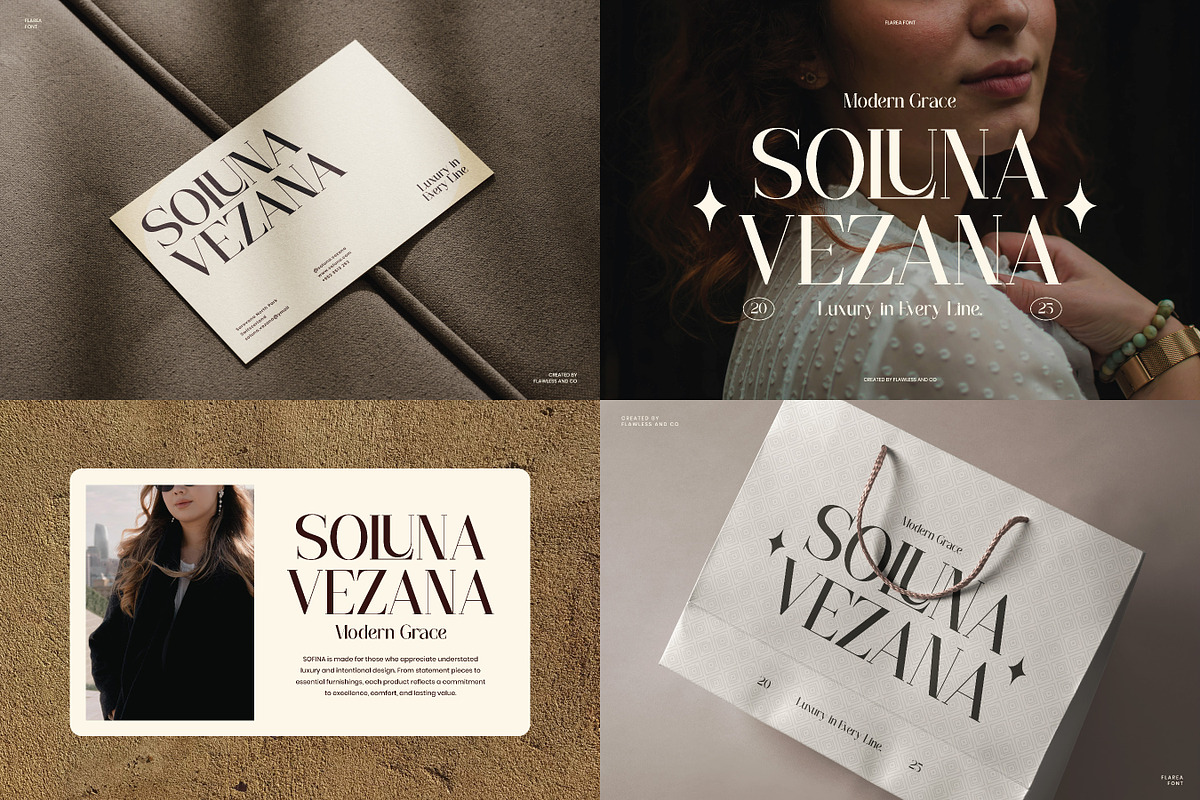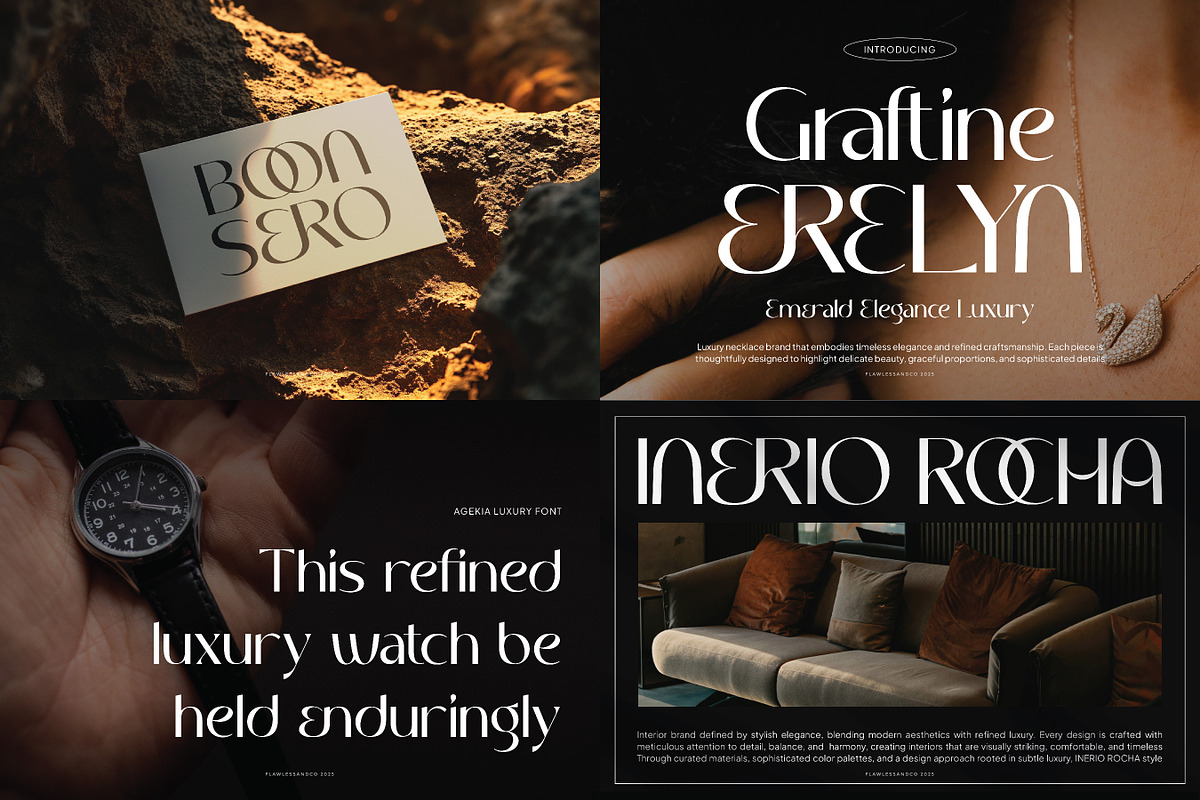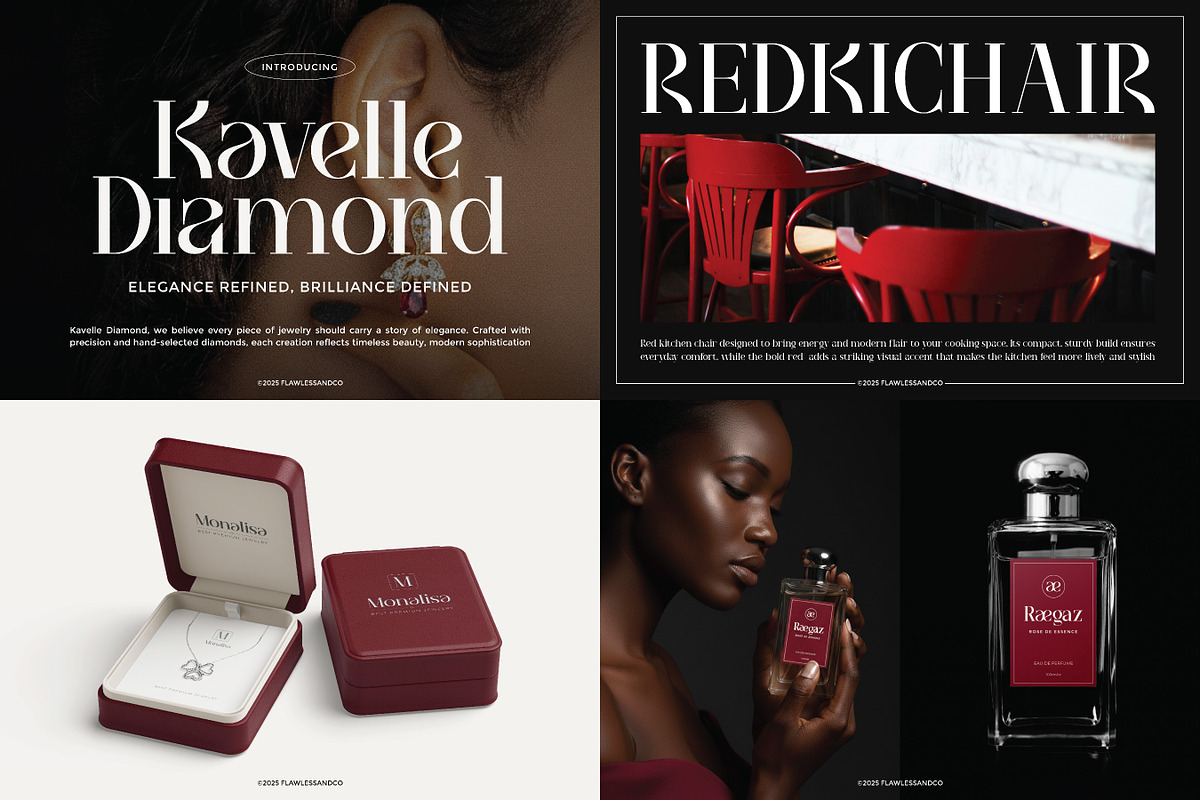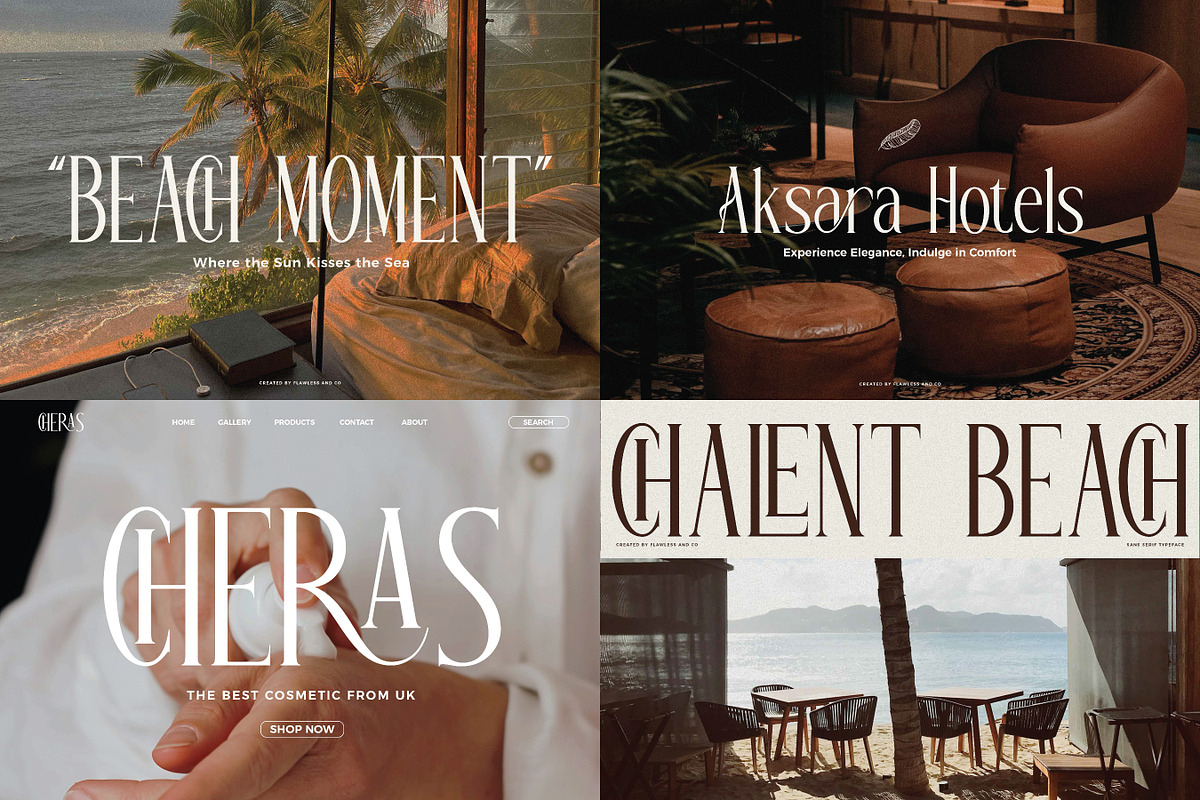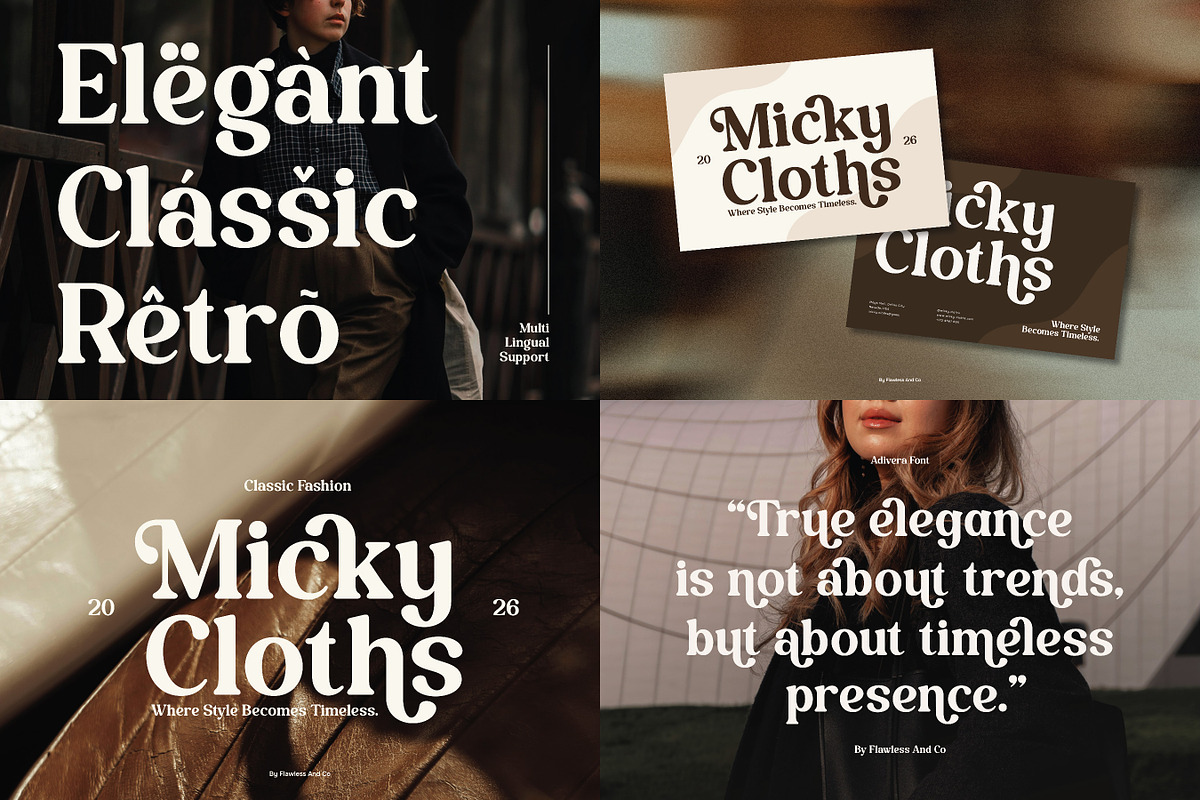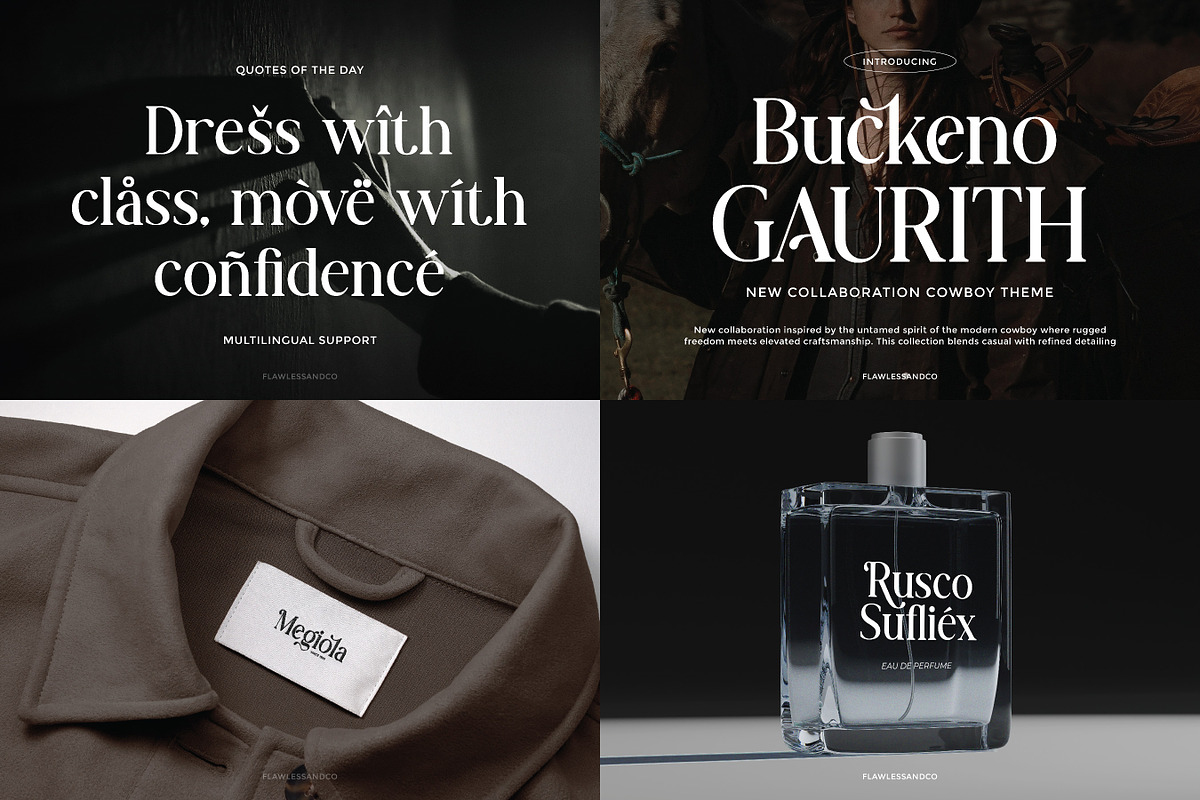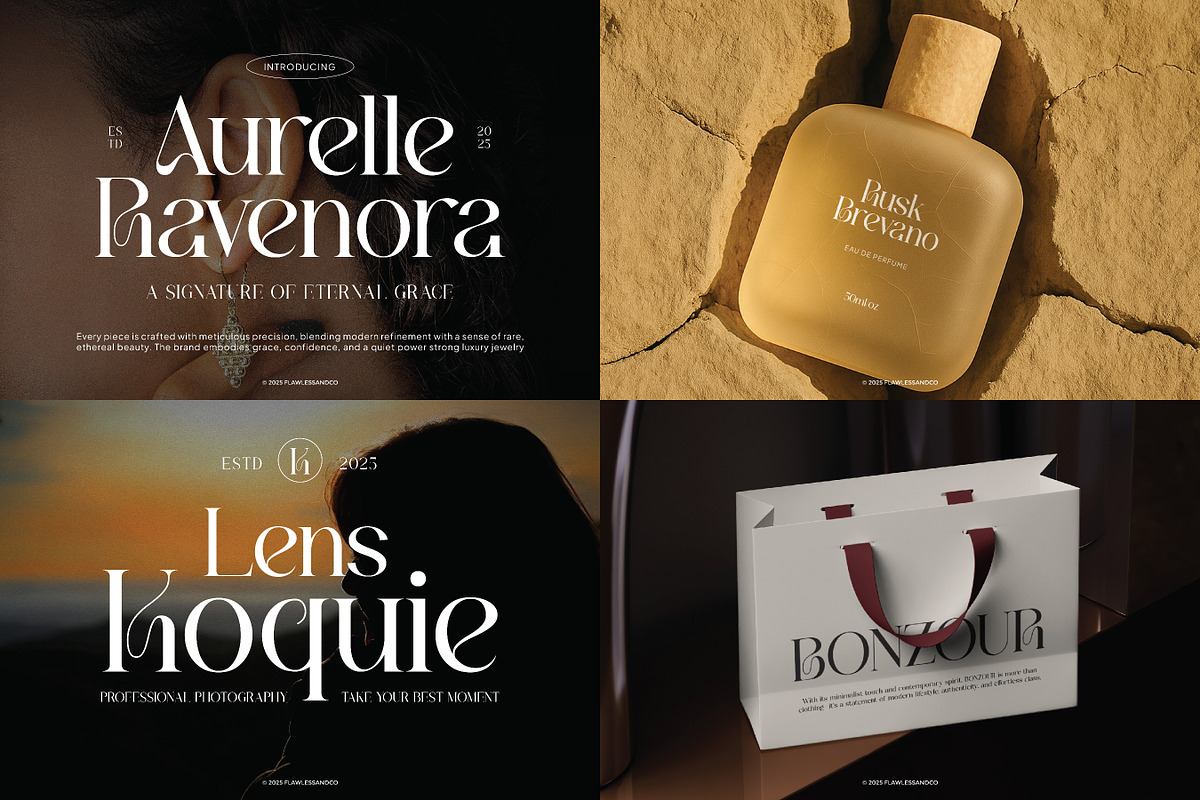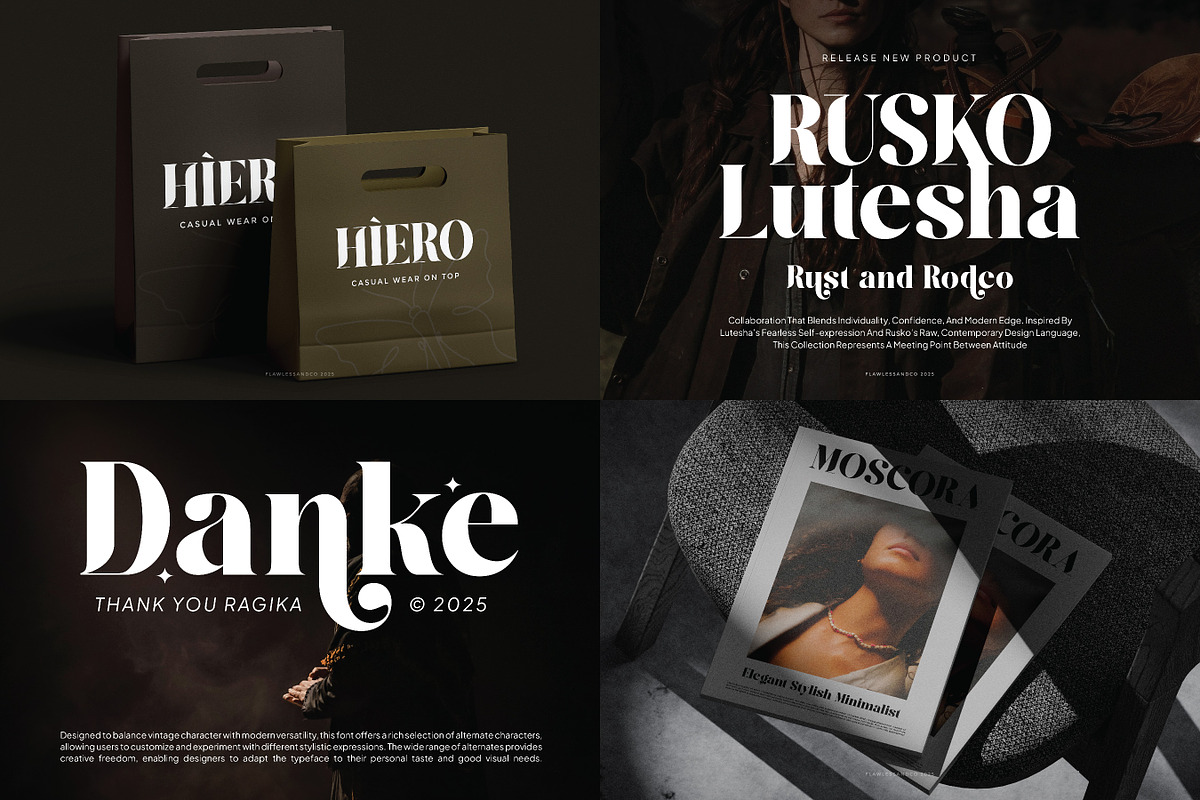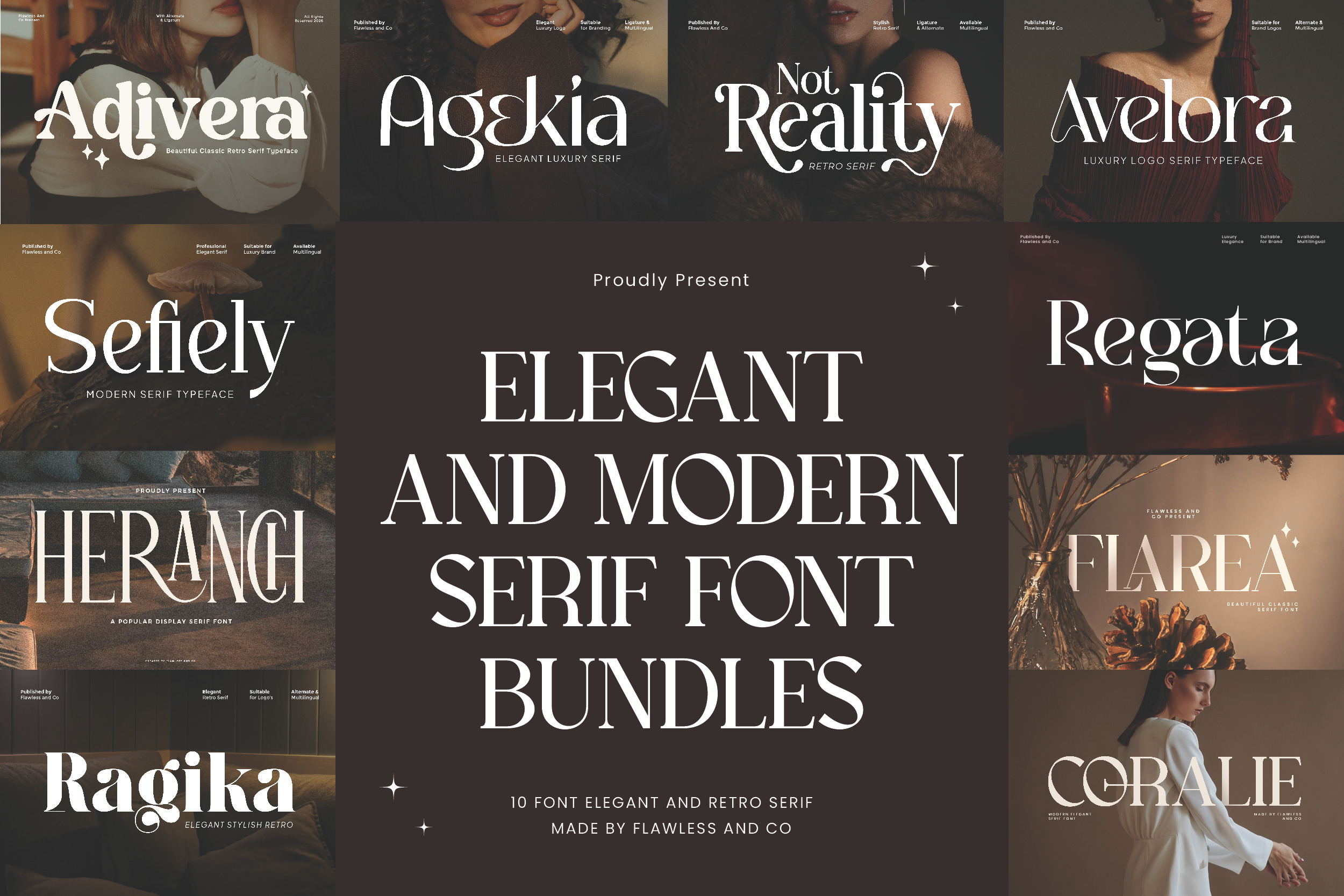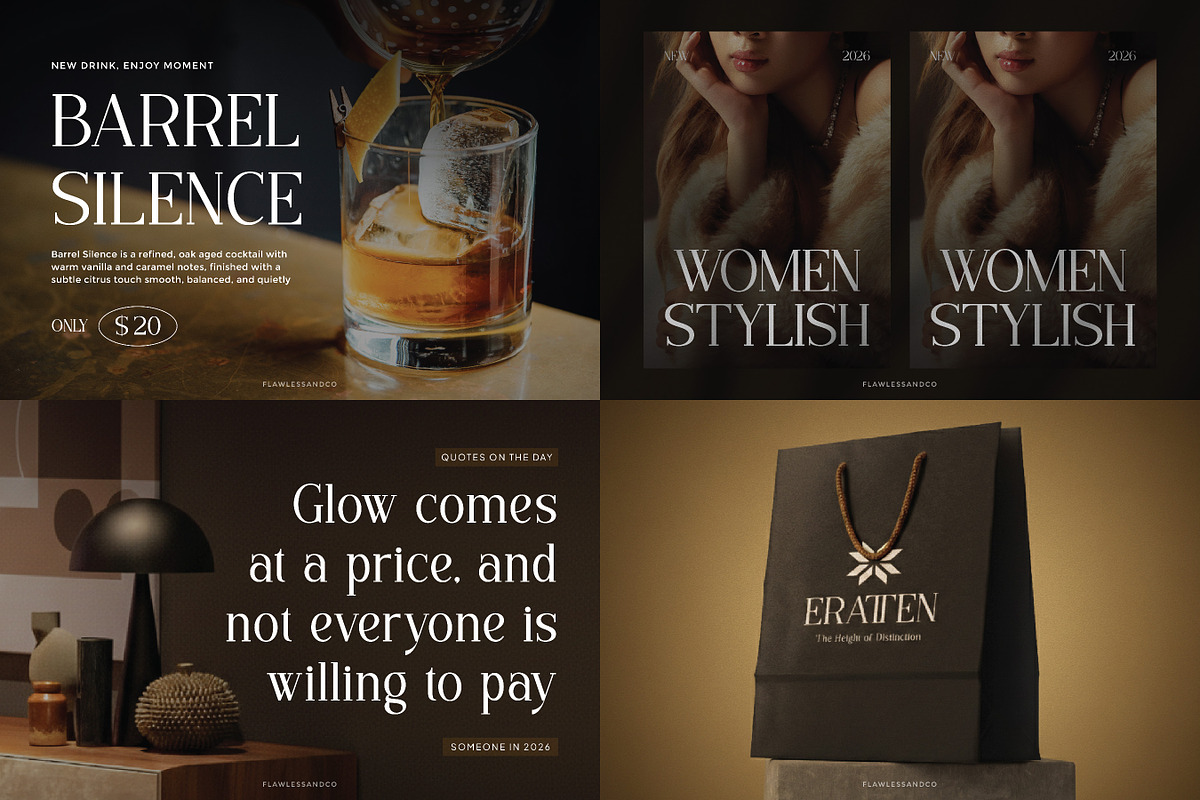
Elegant Modern Serif Font Bundle
Introducing the “Elegant Modern Serif Font Bundle” a refined collection of serif fonts designed to bring sophistication, balance, and modern elegance to your creative projects. Each font in this bundle features graceful serif details, stylish letterforms, and carefully crafted proportions that create a timeless and professional typographic appearance.
These fonts blend modern design with classic serif aesthetics, making them perfect for projects that require elegance, clarity, and a luxurious visual style. Whether you're working on branding, editorial layouts, packaging, or digital designs, this bundle offers versatile serif fonts that elevate the overall look of your typography.
This bundle includes 10 high-quality modern serif fonts that are carefully designed for professional and creative use. They are suitable for various design purposes such as branding materials, logos, magazines, posters, photography overlays, quotes, packaging, business cards, and more.
- Luxury branding and logo design
- Editorial layouts and magazine headlines
- Fashion and beauty branding
- Packaging and product labels
- Wedding invitations and stationery
- Social media graphics
- Website headers and digital design
- Quotes and photography overlays
- Creative display typography